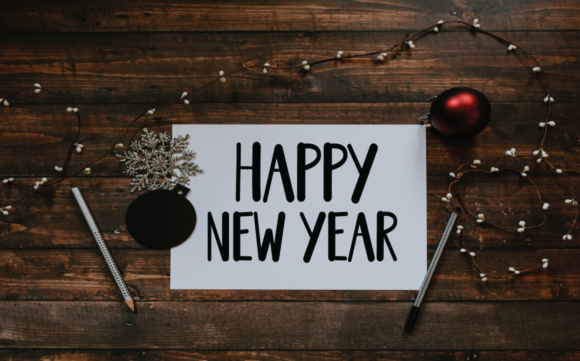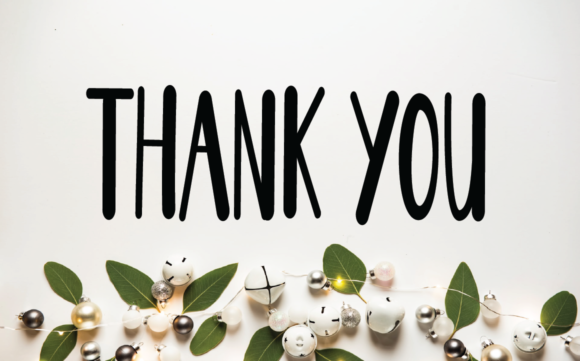
About Hello Christmas Font
Introducing Hello Christmas: The Cute and Sweet Handwritten Font for Joyful Designs
Experience the heartwarming charm of Hello Christmas, a cute and sweet handwritten font that will infuse your designs with an incredibly joyful touch. Whether you’re working on holiday-themed projects, festive logos, greeting cards, social media graphics, or any other creative endeavor, Hello Christmas is the perfect choice to add a touch of delight and cheer.
Hello Christmas’ cute and sweet style brings a sense of warmth and happiness to your creations. Its adorable letterforms and playful strokes make your text exude a delightful and captivating energy.
As a font that boasts versatility and joy, Hello Christmas becomes the go-to choice for projects that demand a touch of creativity and festive spirit. Its handwritten charm ensures that your work resonates with a heartwarming and genuine look.
Embrace the heartwarming charm of Hello Christmas as you embark on your creative journey. Let it be the font that enhances your ideas, making them truly stand out and spreading joy in every endeavor.
As you explore the possibilities of Hello Christmas, you’ll find it to be a font that enhances your designs with ease. Its cute and sweet style transforms your work, ensuring that your holiday-themed projects, logos, and greeting cards leave a lasting impression.
So, add the joyful touch of Hello Christmas to each of your creative ideas and watch as it elevates your designs to new heights. Embrace its cuteness and enjoy the delightful charm it brings to your work, creating projects that are truly standout and unforgettable. With Hello Christmas as your font of choice, your designs will resonate with a sense of creativity and cheer, capturing the festive spirit and spreading joy to your audience. Embrace the warmth of Hello Christmas and create designs that are full of delight and holiday cheer!